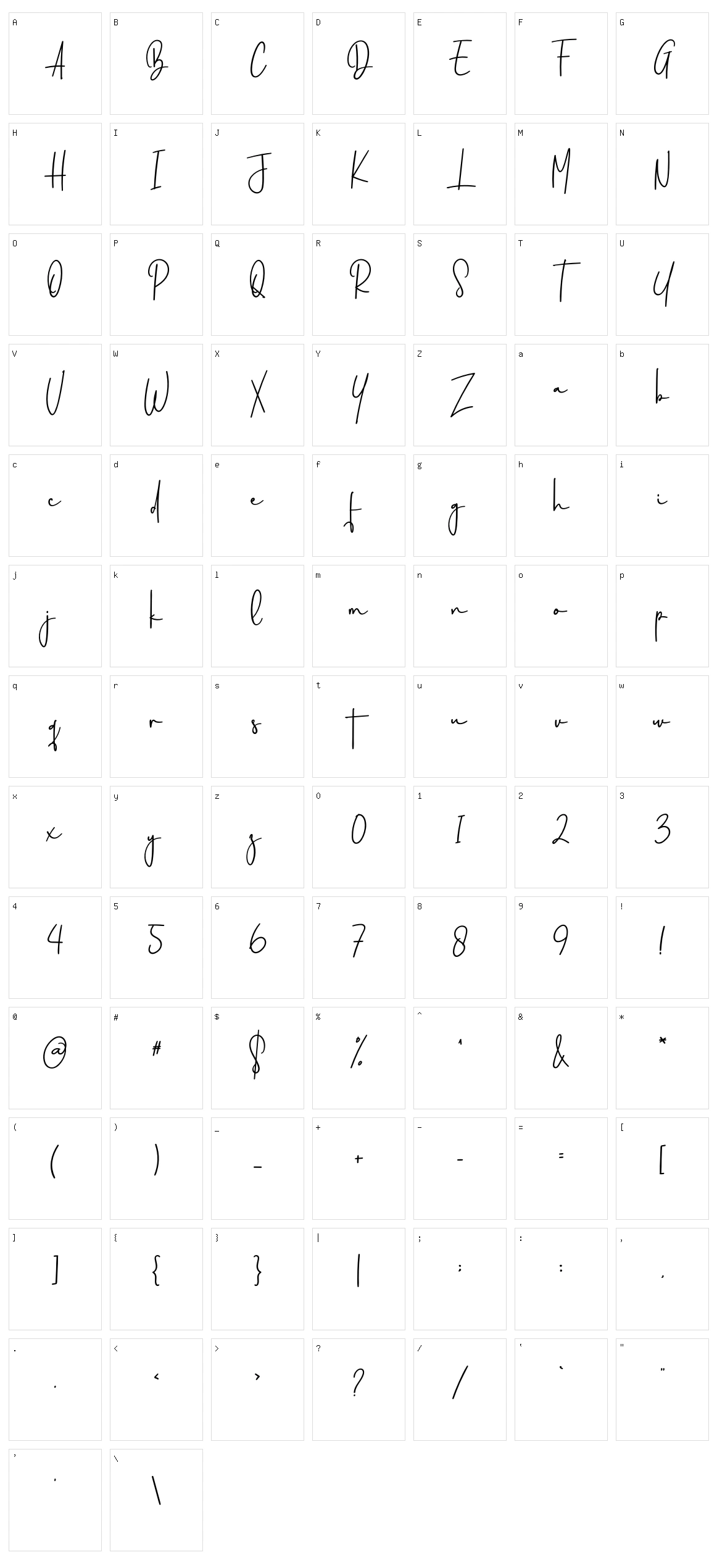
The free font Handfuls is carefully designed by creatype designer, showcasing a thoughtful balance of creativity and usability and falls under the Script font style. When you download the ZIP file, it contains only 58.78 KB of font files, making it lightweight and quick to download. Please review the license details below to understand permitted usage and distribution rights. If license information is not available, we recommend using this font for personal projects only or contacting the author directly for commercial usage permissions.